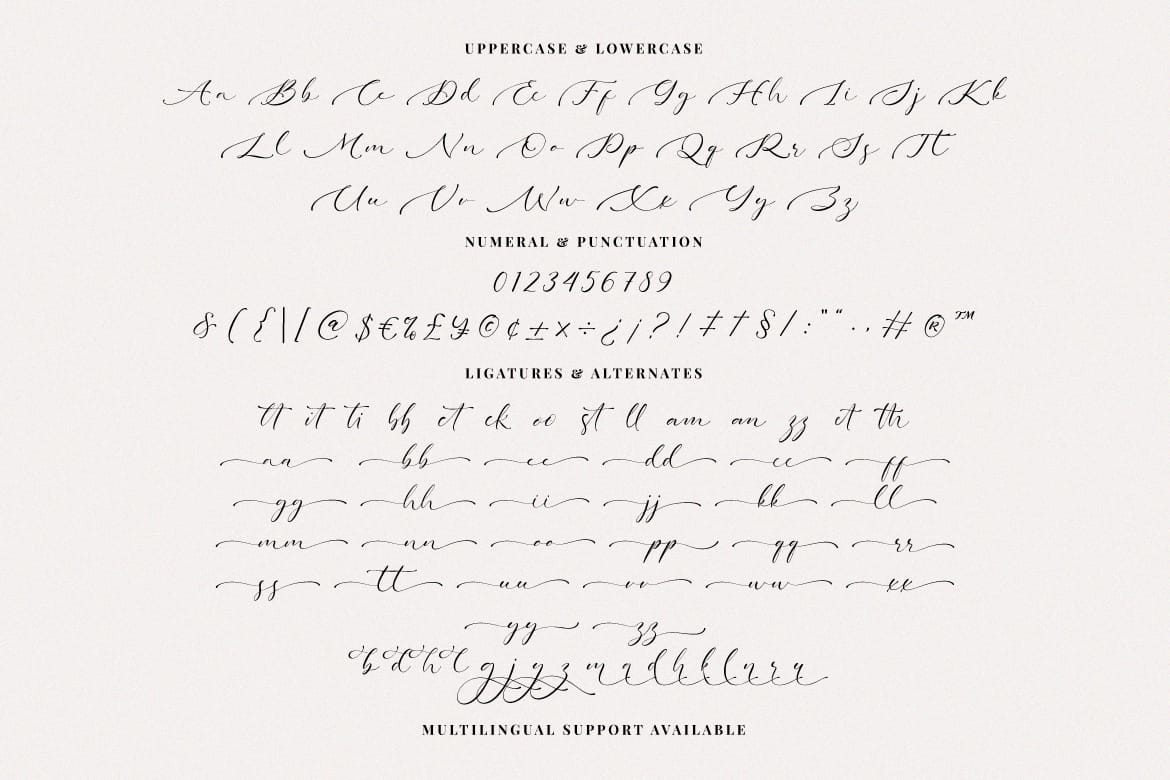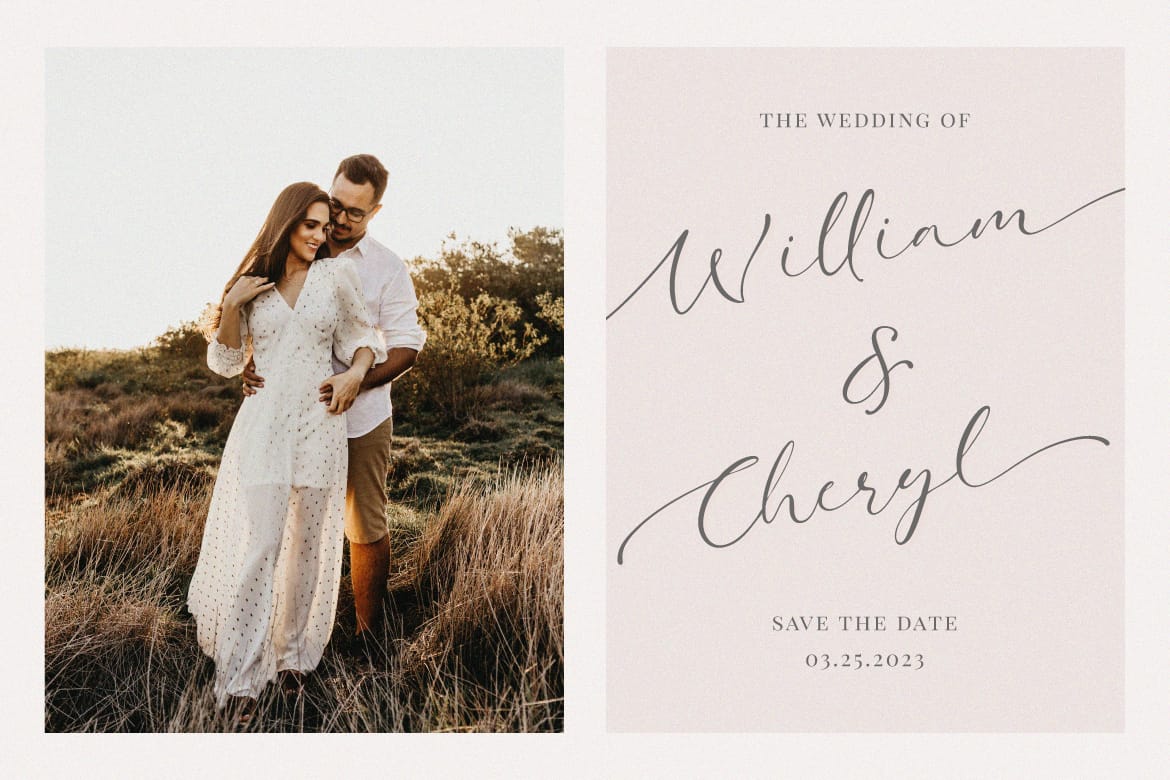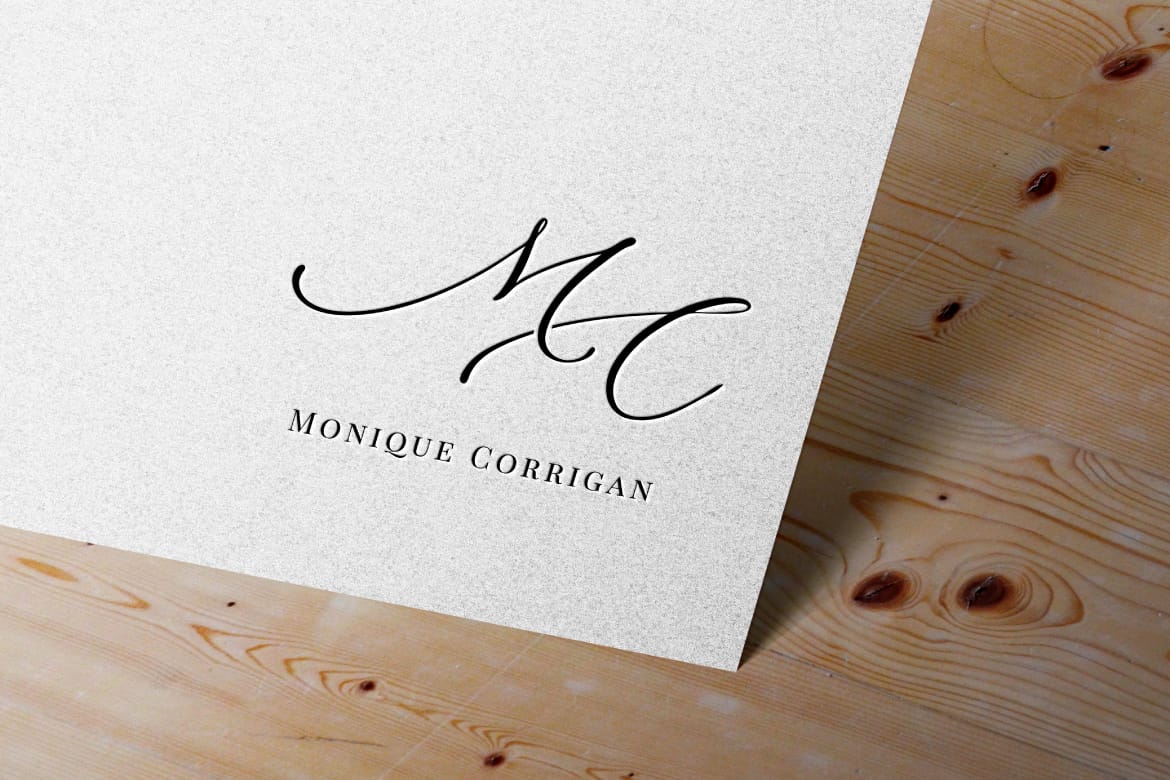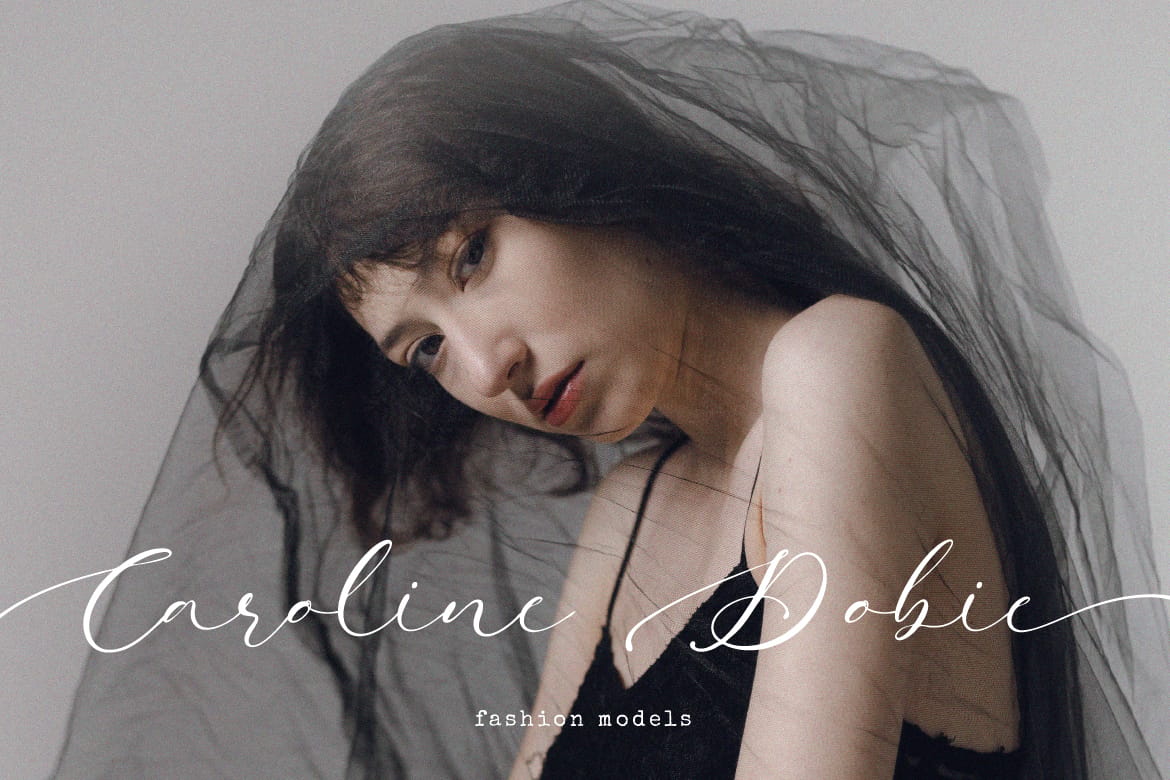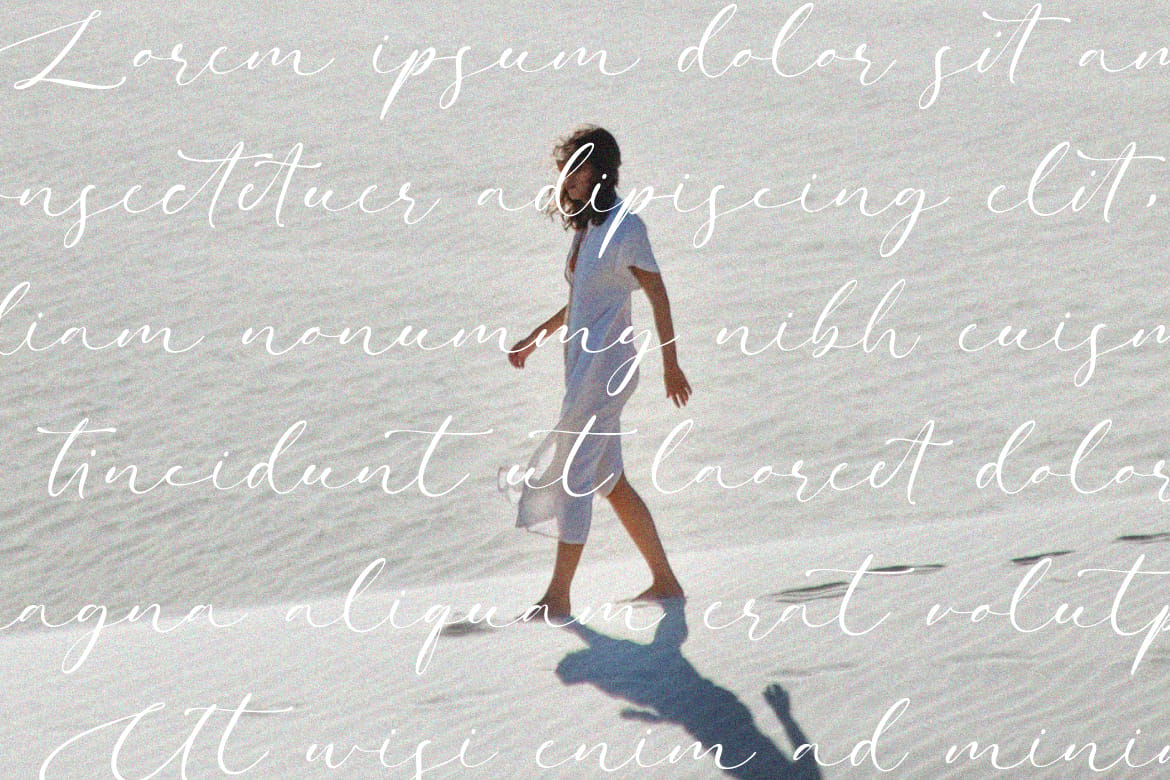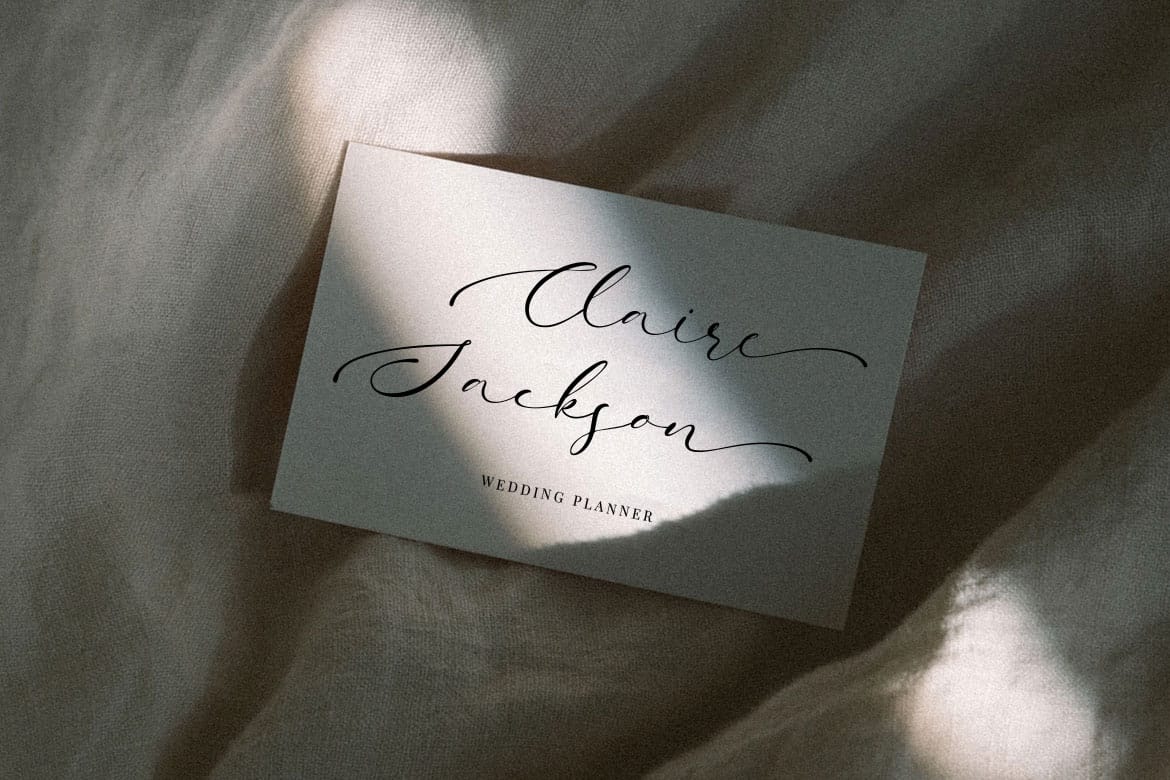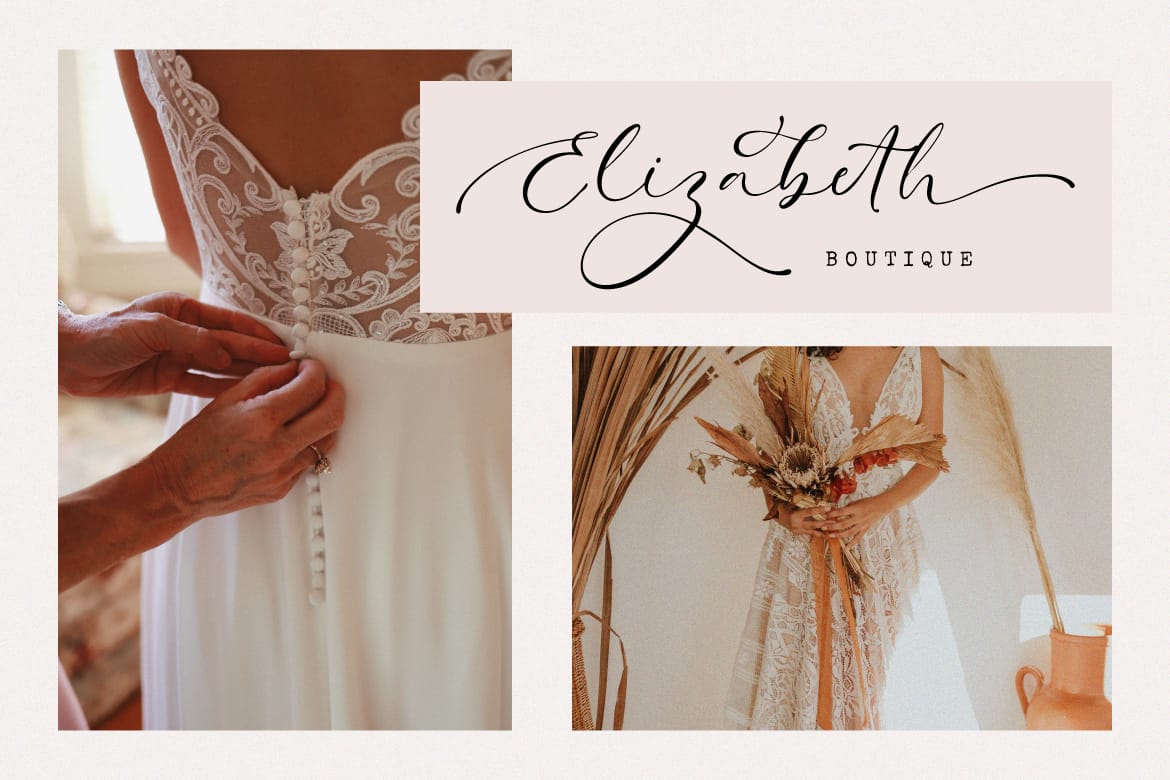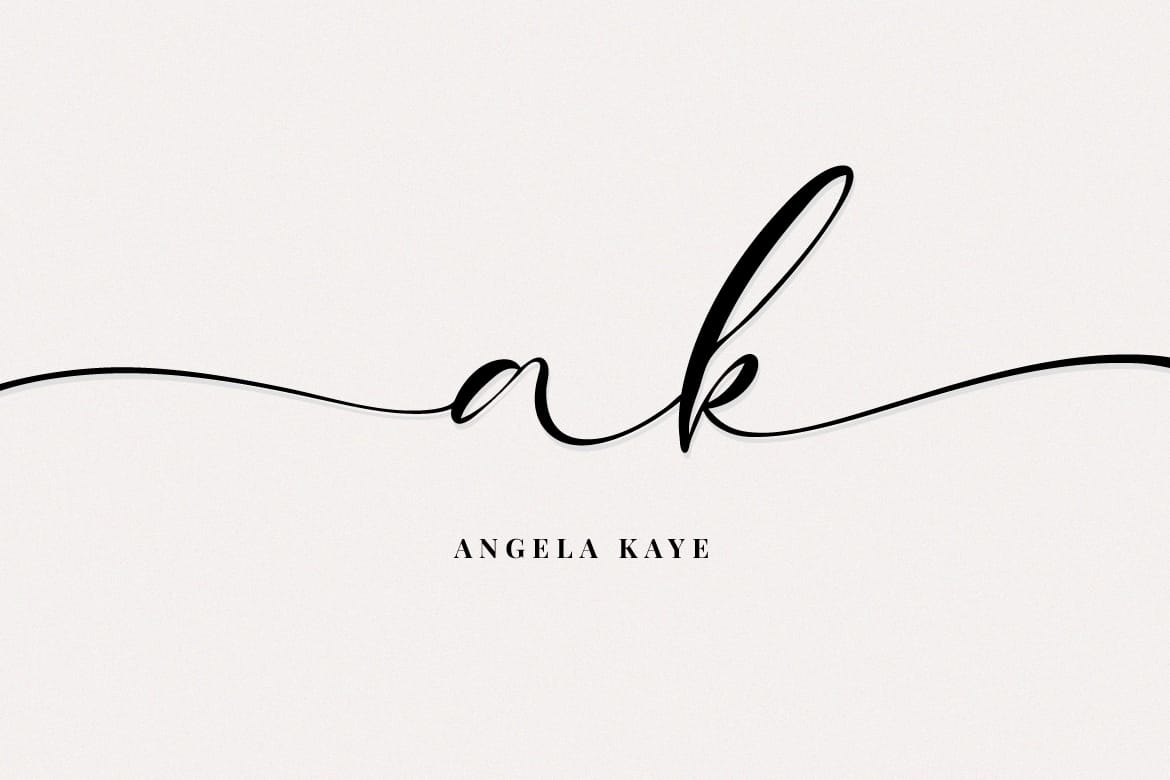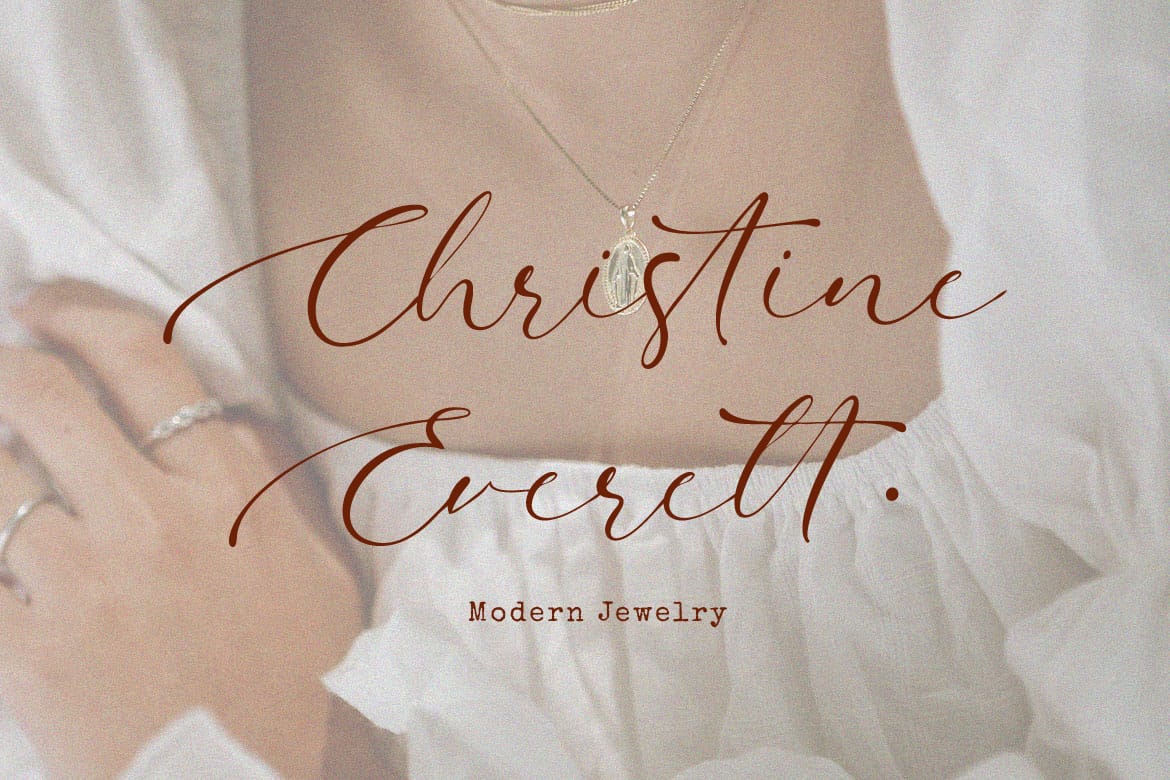
Darling Buttery - Modern Script Font.
Beautiful and modern script fonts are ready for you to use in your design projects. Suitable for use in wedding invitation designs, logos, quotes, branding and many more.
Features: Uppercase, Lowercase, Numeral, Punctuation, Multilingual, Ligatures & Alternates.
- Ligatures and alternates included
- Perfect for weddings and branding